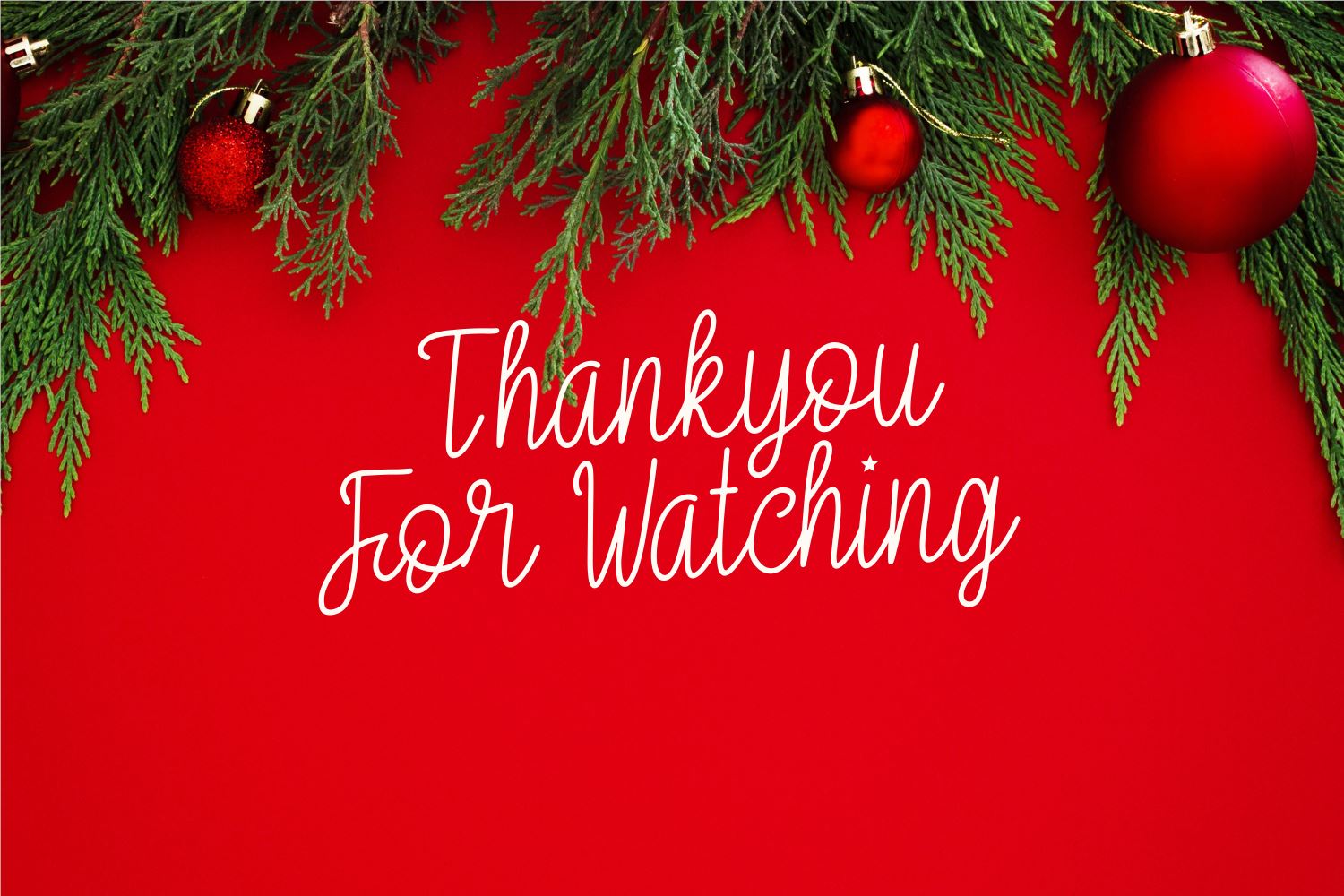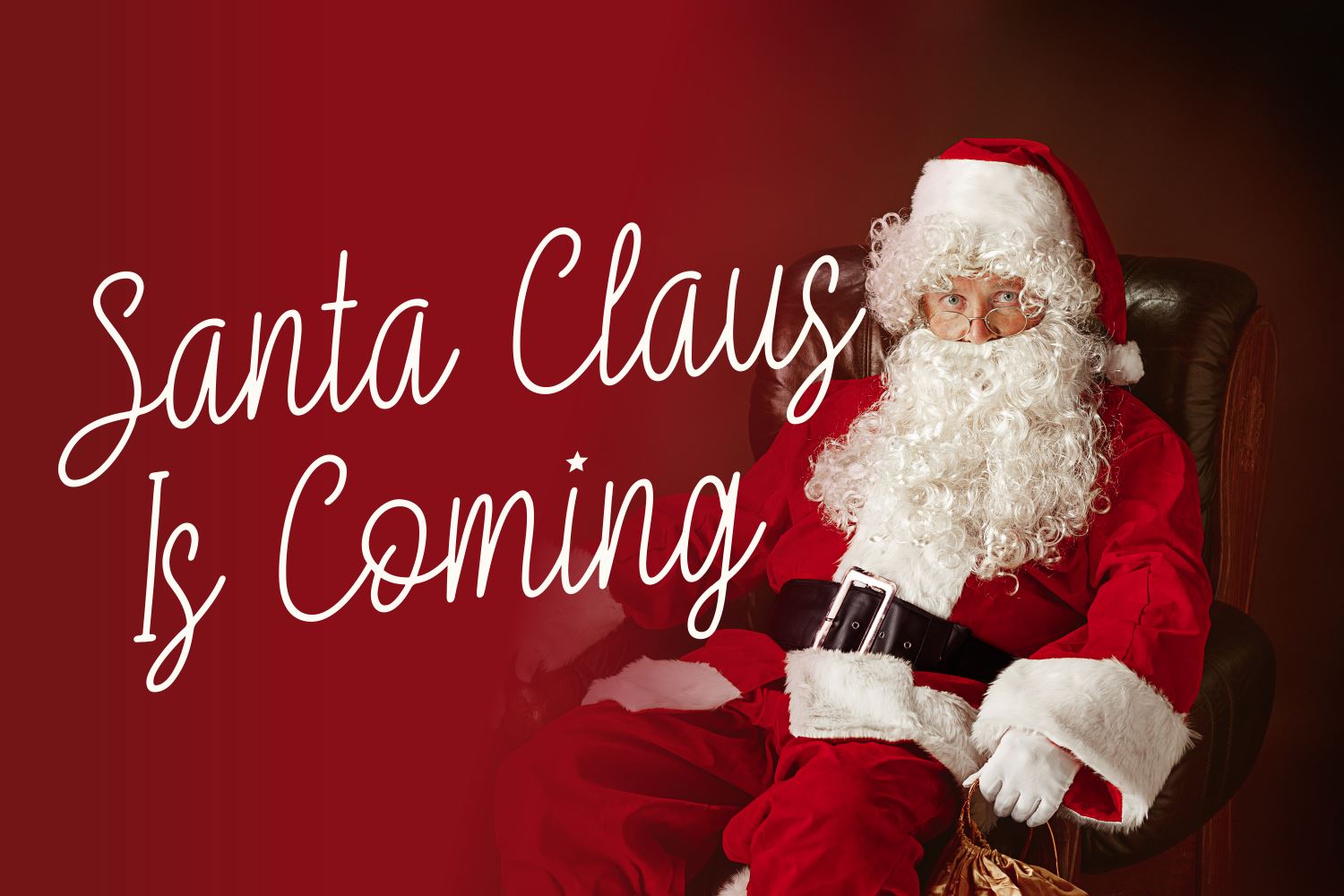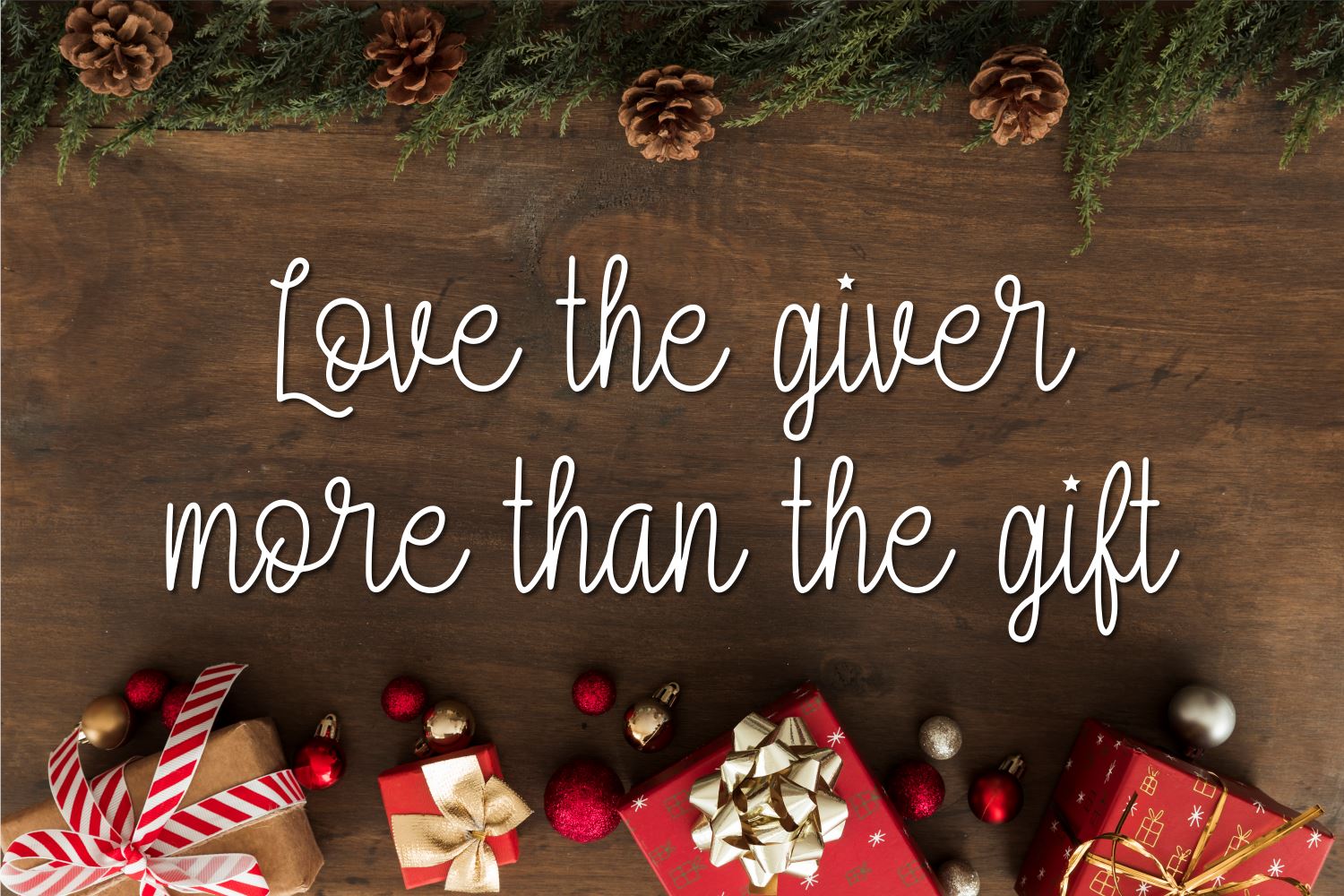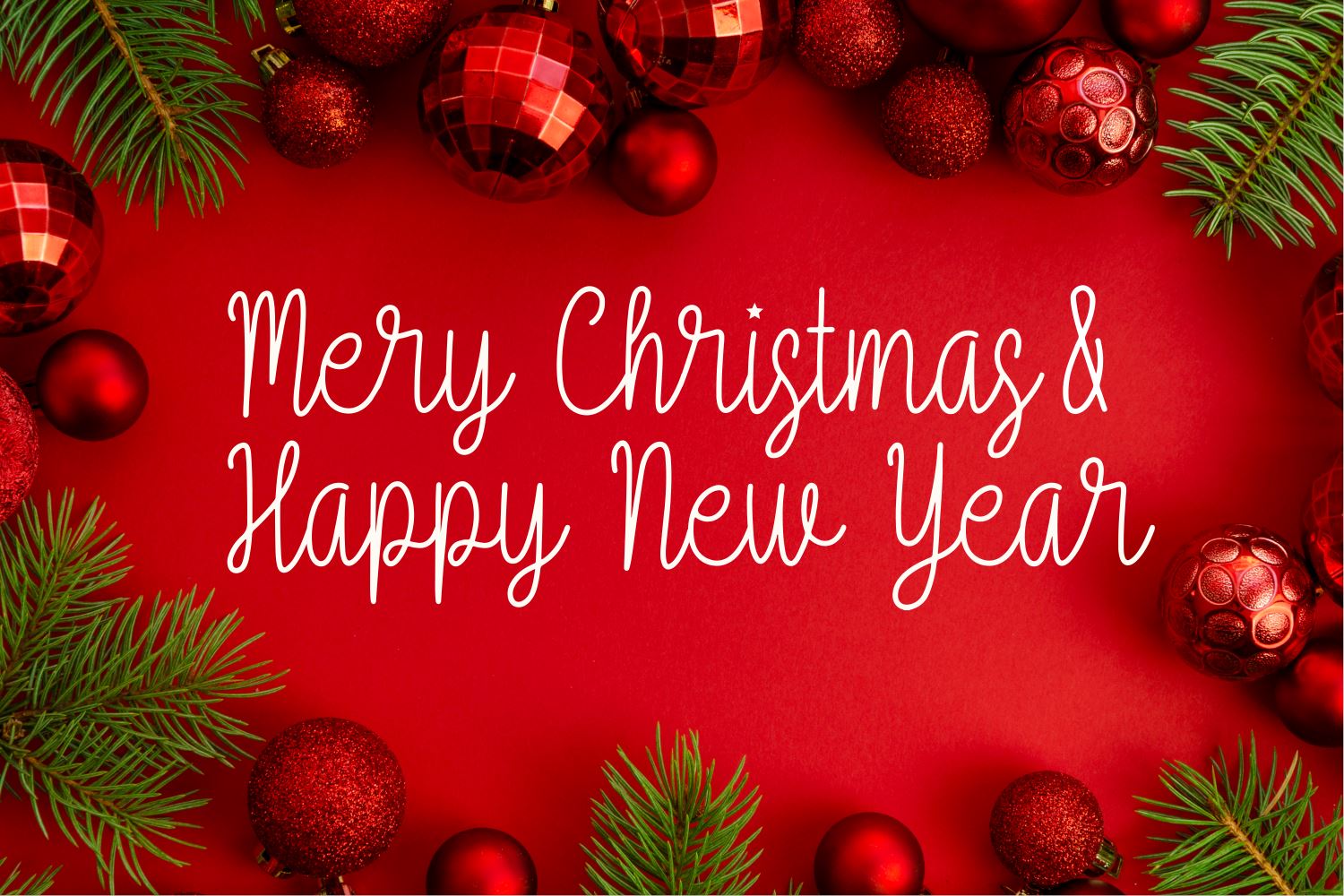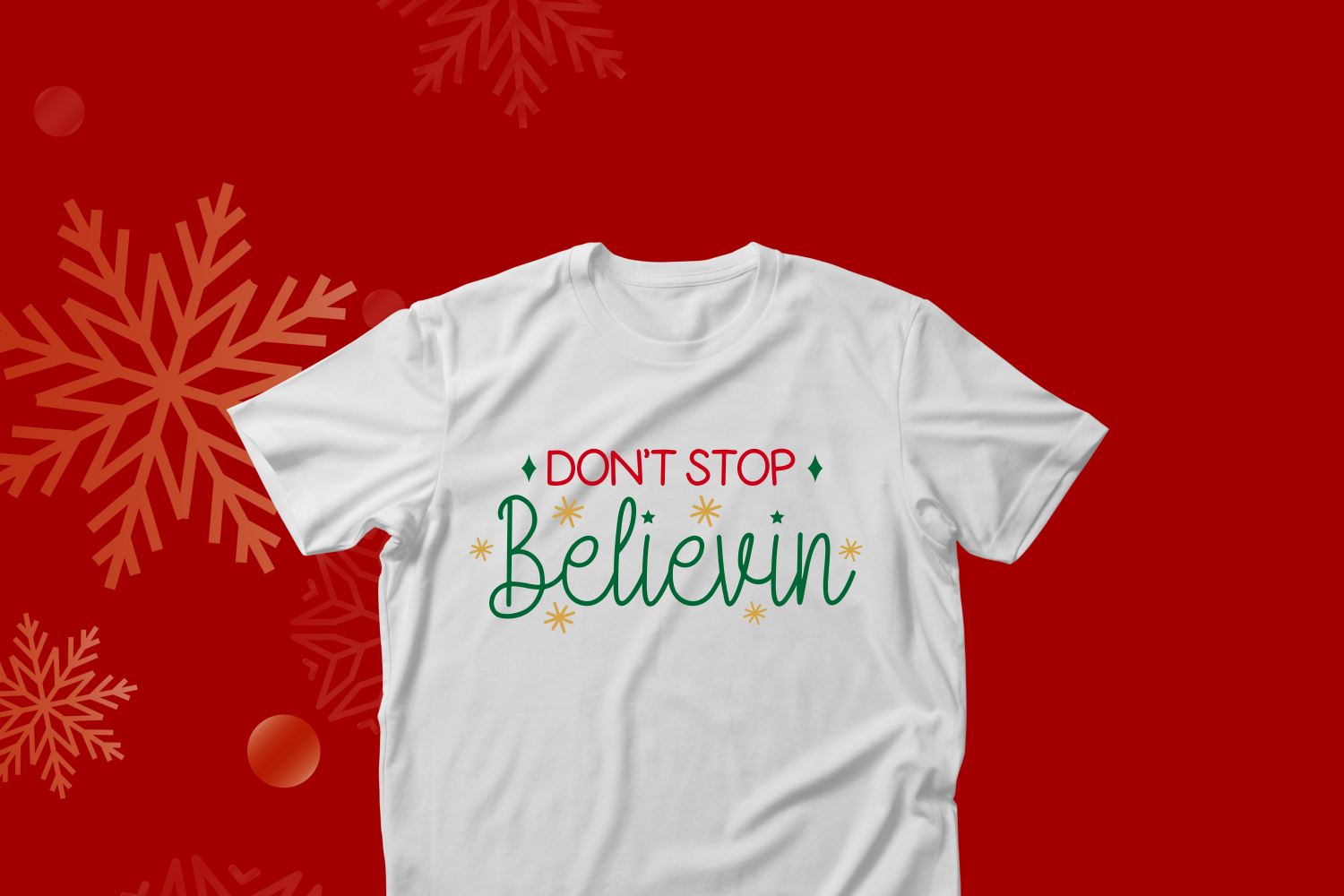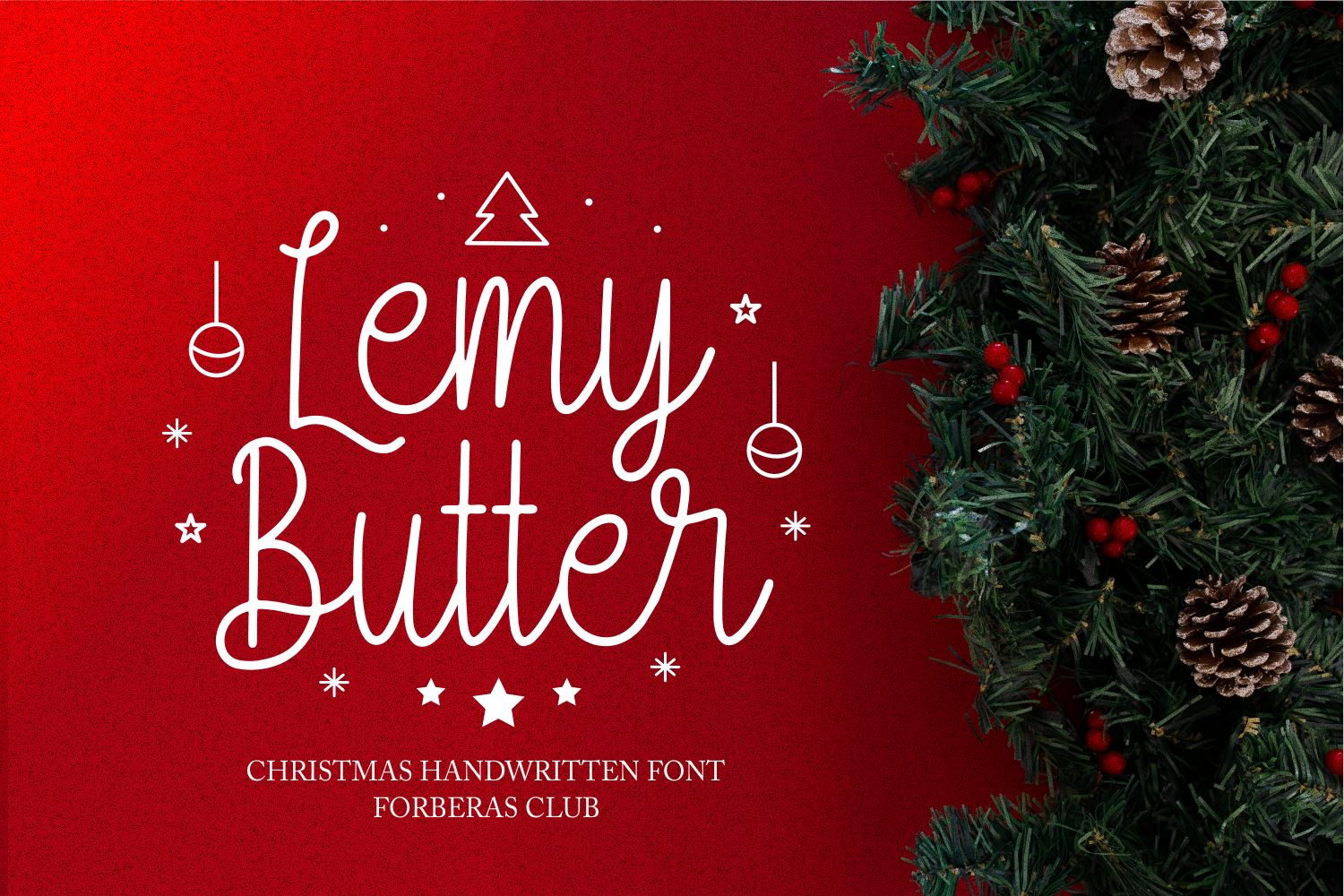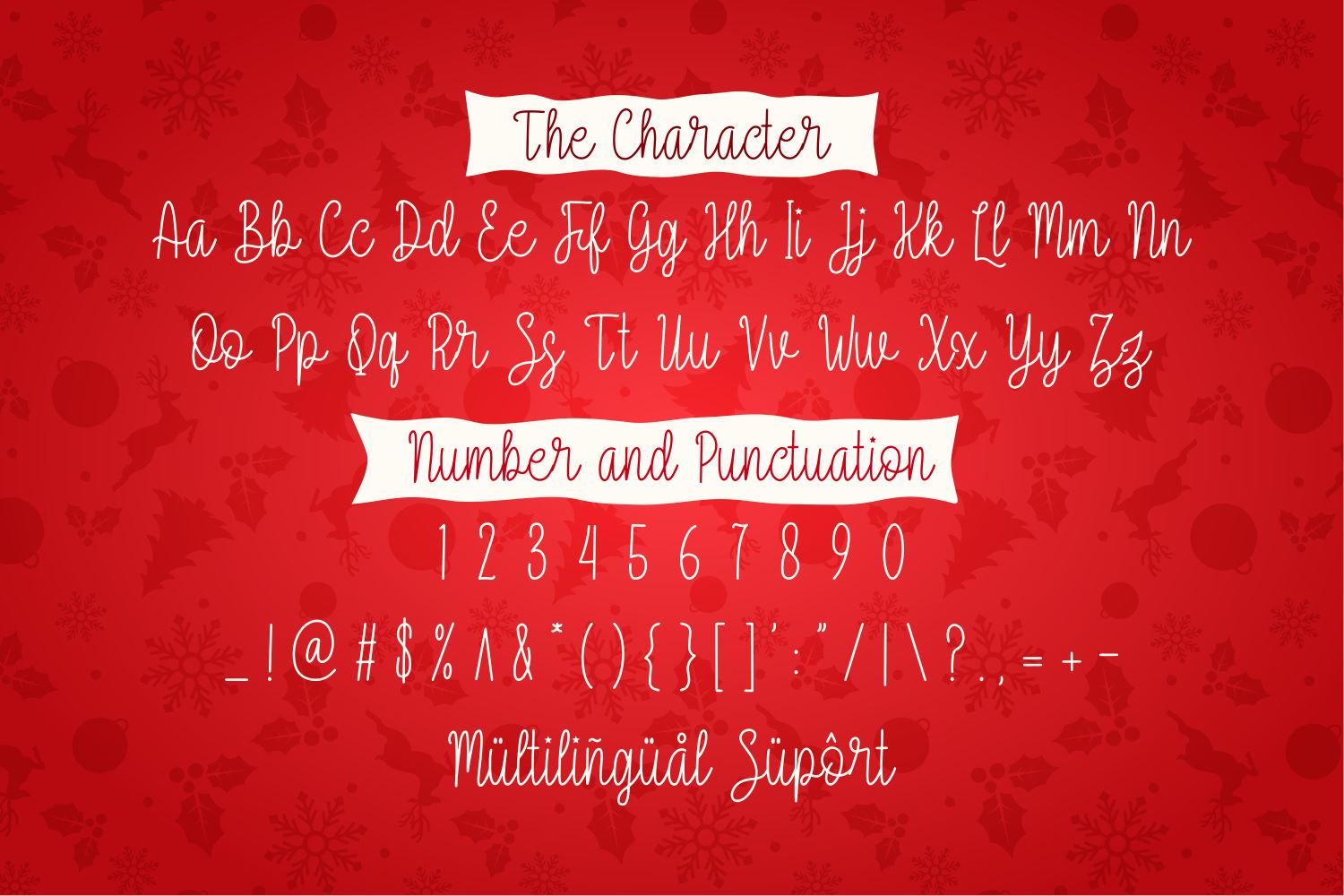
Lemy Butter
Introducing Lemy Butter Font by Forberas Club Lemy Butter is a Modern Handwritten Font. Lemy Butter is perfect for book cover, product packaging, branding project, megazine, social media, christmas party fonts, or just used to express words above the background. This font includes TTF and OTF, This font also multilingual support.